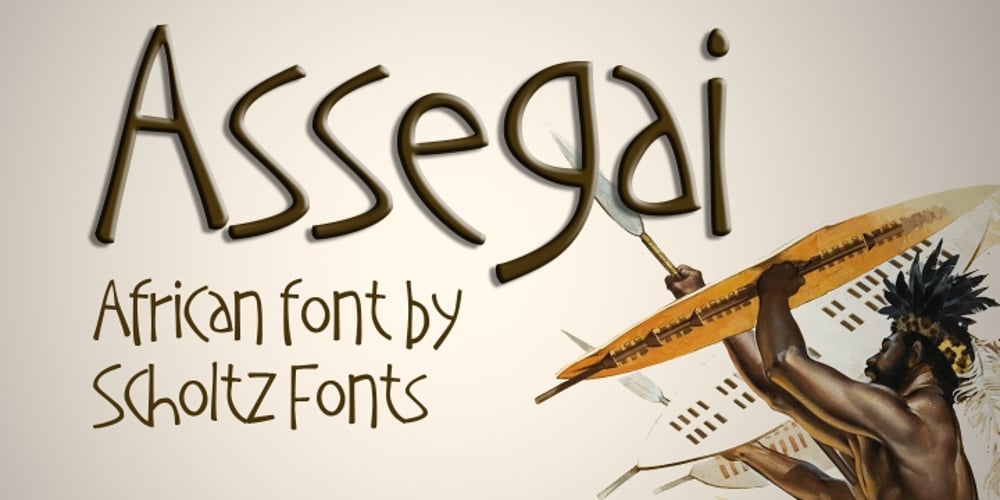
Assegai
Assegai font
Assegai Font Family was designed by Anton Scholtz and published by Scholtz Fonts. Assegai contains 1 styles and family package options. Named for the Zulu traditional spear, Assegai evokes the long, slim outline of the weapon, and the strength of the Zulu warrior. The font combines the irregular shapes of tribal African art with the simple, clean elegance of contemporary design. It is especially useful for headings, subheading, for shorter passages and also works as a body font since it has both upper and lower case and is striking and readable.